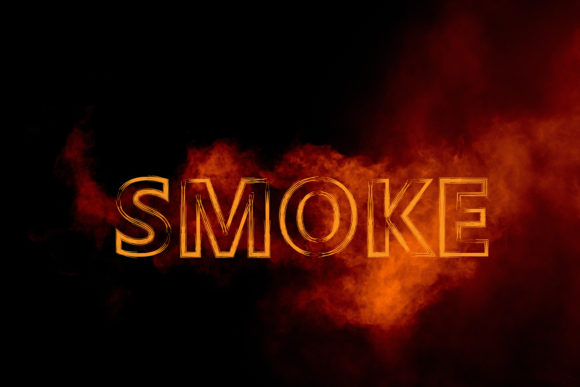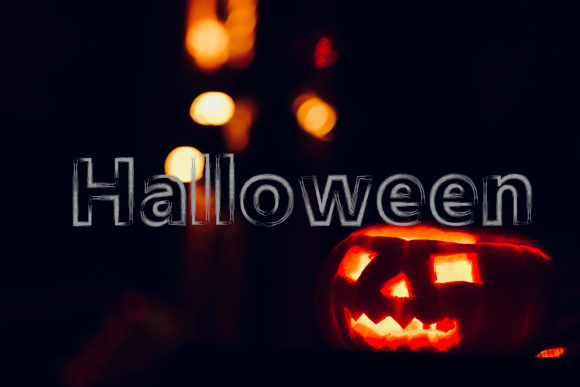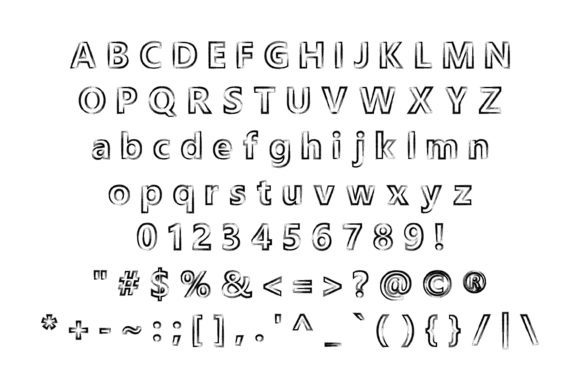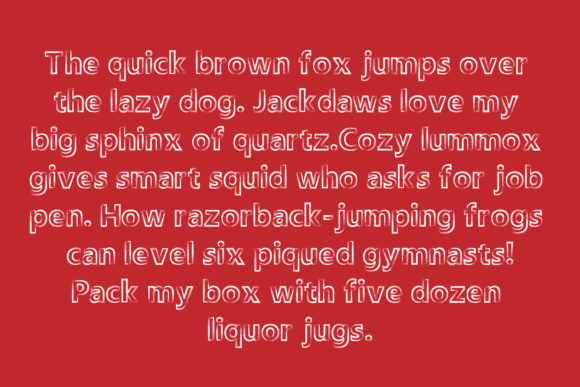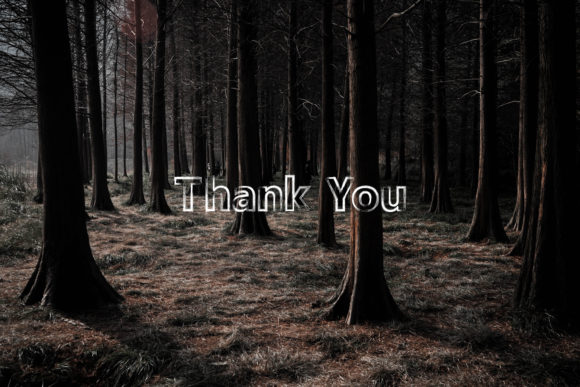
Bhayan Font: The Ultimate Choice for Bold and Stunning Designs
Are you tired of using the same old fonts for your designs? Look no further than the Bhayan Font, a cool and bold outlined display font that is sure to take your work to the next level. In this article, we’ll explore the features and benefits of Bhayan Font, and show you how to make the most of its endless possibilities.
What is Bhayan Font?
Bhayan Font is a unique and eye-catching font that is perfect for designers and crafters looking to add a touch of personality to their work. With its bold and outlined design, Bhayan Font is sure to make a statement on any poster, flyer, or print. Whether you’re working on a graphic design project, a craft project, or simply want to add some flair to your digital creations, Bhayan Font is the perfect choice.
Key Features of Bhayan Font
- Bold and Outlined Design: Bhayan Font features a bold and outlined design that is sure to grab attention.
- Display Font: Bhayan Font is a display font, making it perfect for use on posters, flyers, and other large-format prints.
- Cool and Unique Style: Bhayan Font has a cool and unique style that is sure to set your designs apart from the crowd.
- Endless Possibilities: With Bhayan Font, the possibilities are endless – use it for your designs, crafts, and digital creations to add a touch of personality and style.
Benefits of Using Bhayan Font
So why choose Bhayan Font for your designs? Here are just a few benefits of using this amazing font:
- Adds Visual Interest: Bhayan Font adds visual interest to your designs, making them more engaging and attention-grabbing.
- Perfect for Display Text: Bhayan Font is perfect for use on display text, such as headings, titles, and captions.
- Easy to Read: Despite its bold and outlined design, Bhayan Font is easy to read, even at small sizes.
- Versatile: Bhayan Font can be used for a wide range of design projects, from posters and flyers to digital creations and crafts.
- Experiment with Different Sizes: Bhayan Font looks great at a range of sizes, from small and subtle to large and bold.
- Play with Color: Bhayan Font looks great in a range of colors, from bright and bold to subtle and muted.
- Combine with Other Fonts: Bhayan Font pairs well with a range of other fonts, so don’t be afraid to experiment with different combinations.
Endless Possibilities with Bhayan Font
So what can you create with Bhayan Font? The possibilities are endless! Here are a few ideas to get you started:
- Posters and Flyers: Bhayan Font is perfect for use on posters and flyers, adding a touch of personality and style to your designs.
- Digital Creations: Use Bhayan Font to add a touch of personality to your digital creations, such as social media graphics and blog posts.
- Crafts: Bhayan Font is perfect for use on craft projects, such as handmade cards and gift tags.
- Graphic Design Projects: Bhayan Font is a great choice for graphic design projects, such as brochures, business cards, and logos.